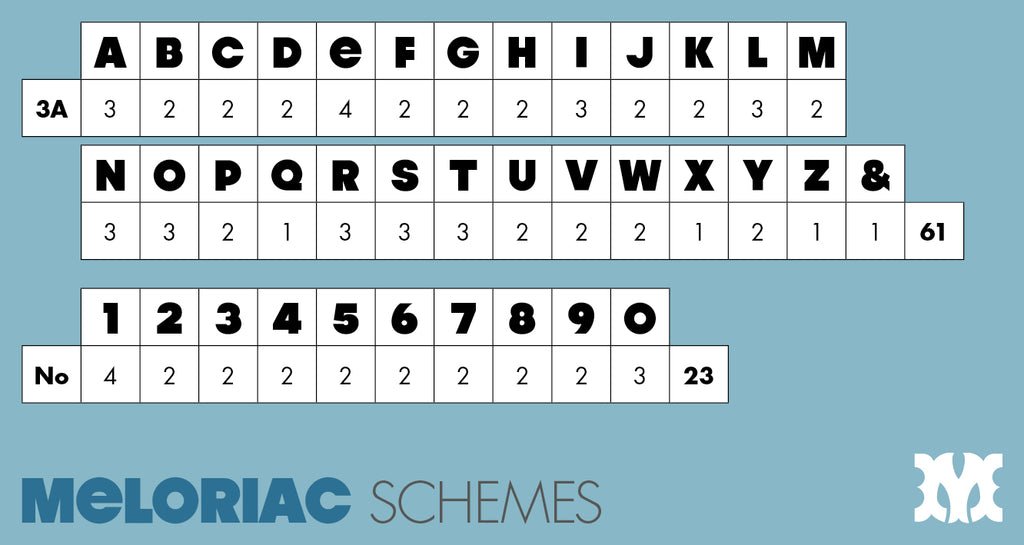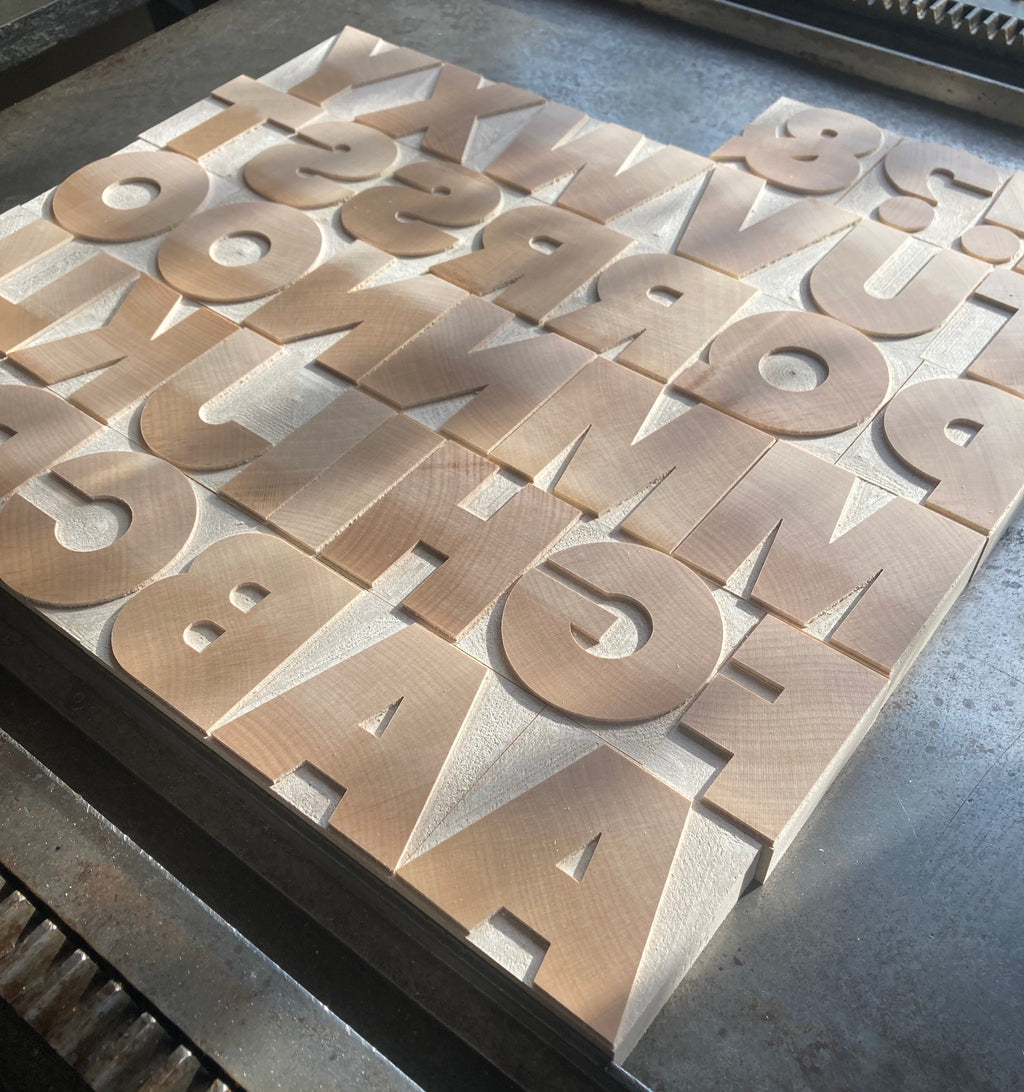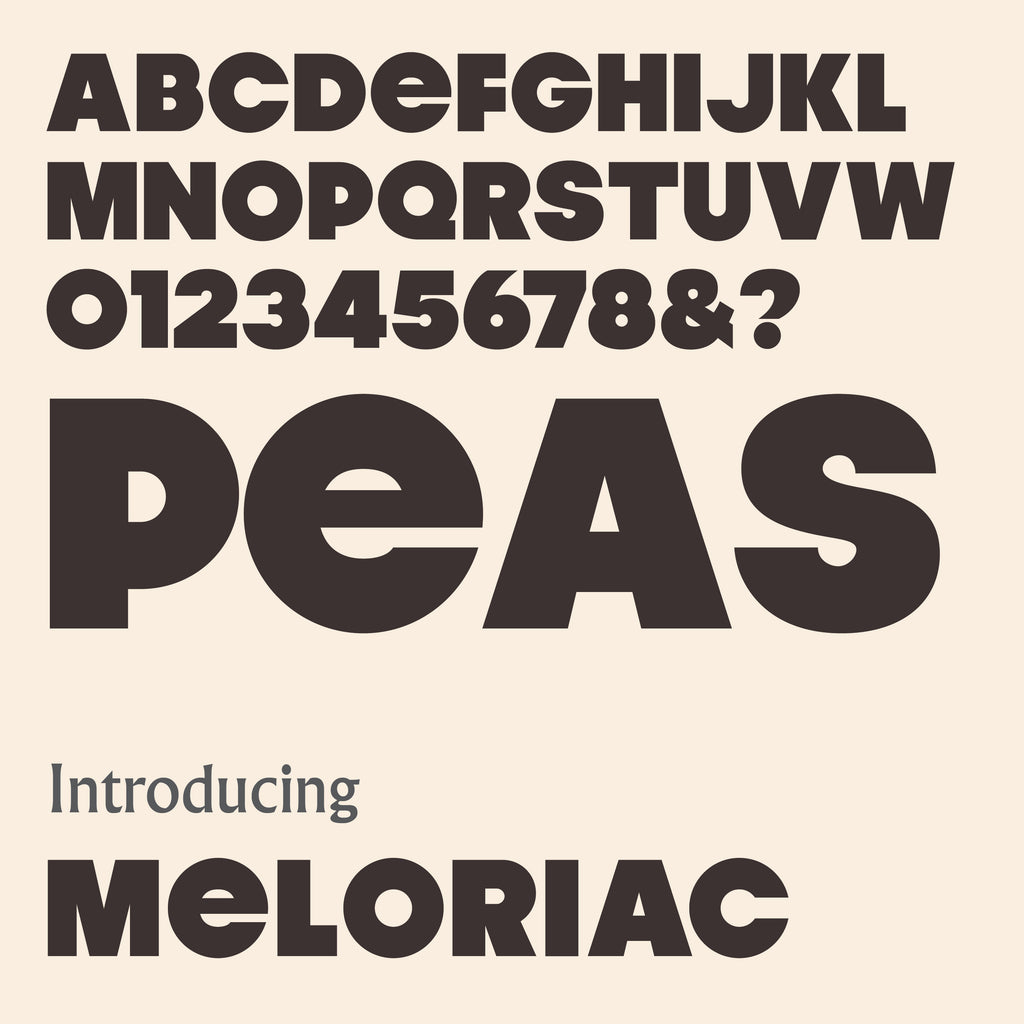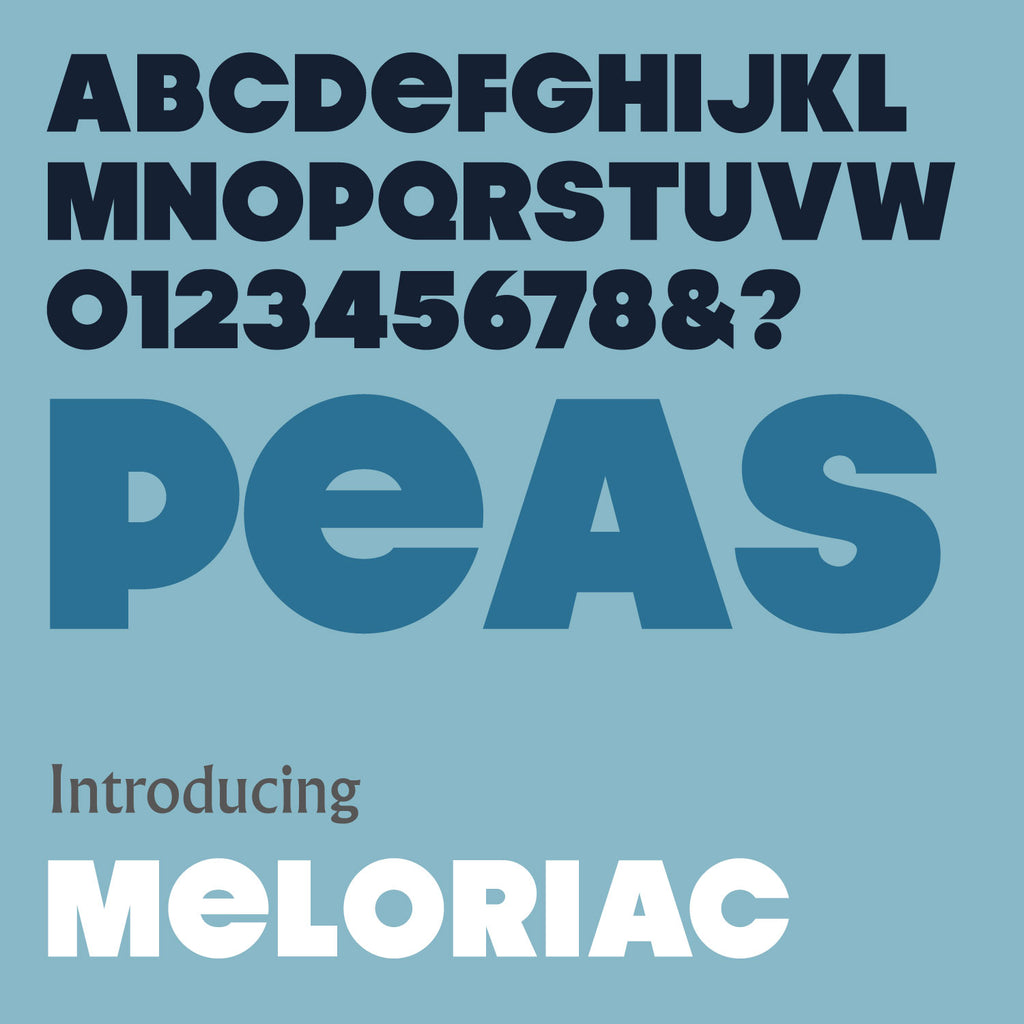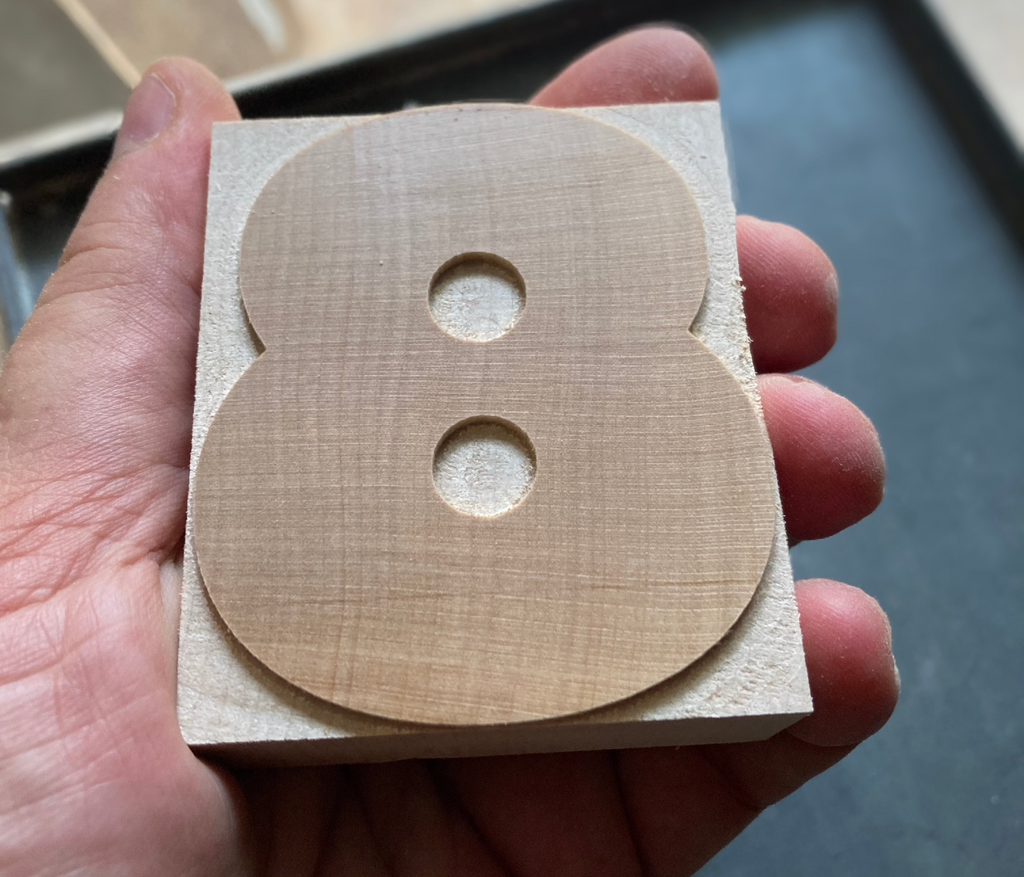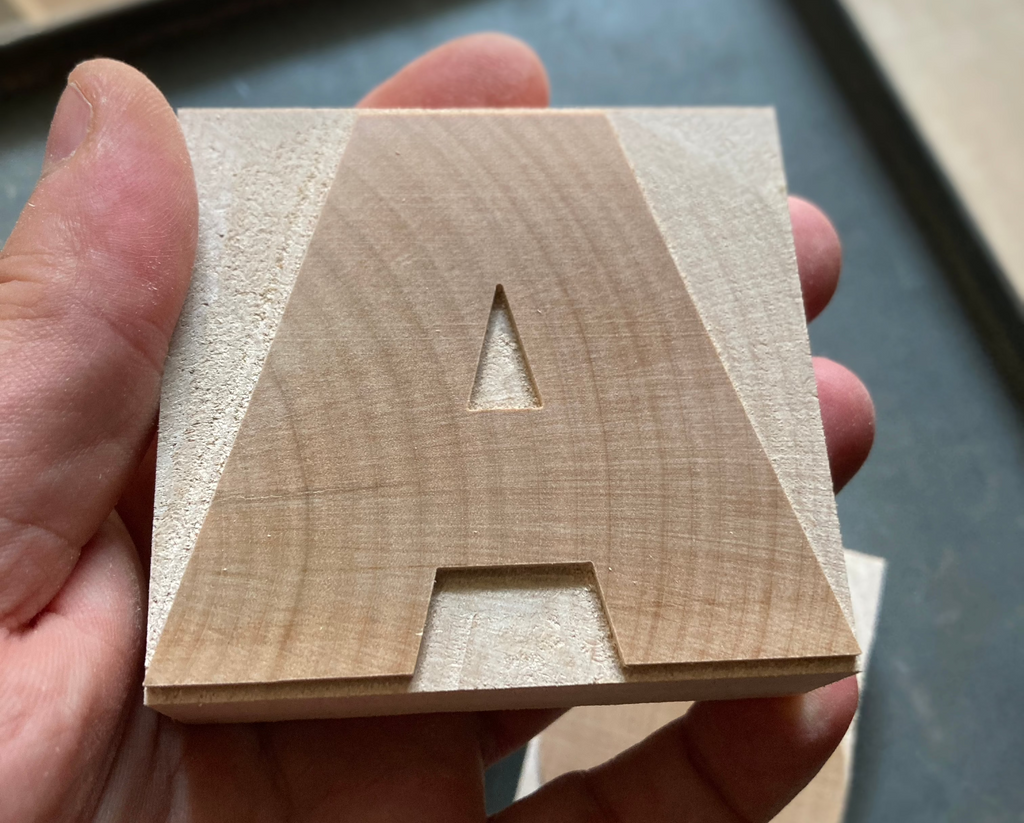
'Meloriac' letterpress woodtype typeface
Meloriac is a unicase display typeface, an extra-heavy tribute to Futura Extra Bold and Avant Garde Gothic Bold. Designed by Raymond Larabie at Typodermic Fonts and available in woodtype for the first time. Manufactured under licence.
16 line (67.7mm), 10 line (42.3mm), 8 line (33.8mm) and 6 line (25.4mm) versions cut from end grain hardwood using a combination of modern CNC technology and traditional hand woodworking tools (including an original printers saw), made to English type-high (0.918in or 23.3mm) within plus or minus 0.1mm tolerance, sealed with shellac and hand finished with a traditional polished printing surface.
Endgrain hardwood, clear shellac.
Each block varies in width however average size is 67 x 23.3 x 67.7mm for 16 line.